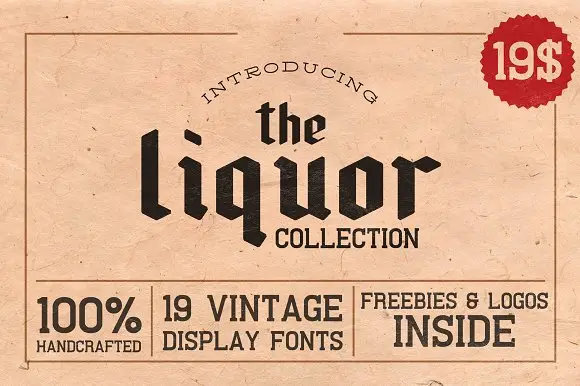
The Liquor Collection Font Bundle
Introducing the Liquor Collection Font Bundle, a carefully curated selection of fonts designed to elevate your creative projects. This bundle features a variety of font styles, including elegant scripts, bold display types, and modern sans-serifs, perfect for branding, logos, web design, print materials, and user interfaces.
• Multiple font styles: script, display, and sans-serif
• Various weights for versatility
• Unique character sets and ligatures
• Weights: Light, Regular, Bold, and more
• Ideal for branding and logo design
• Perfect for print projects like posters and flyers
• Great for digital applications such as websites and apps